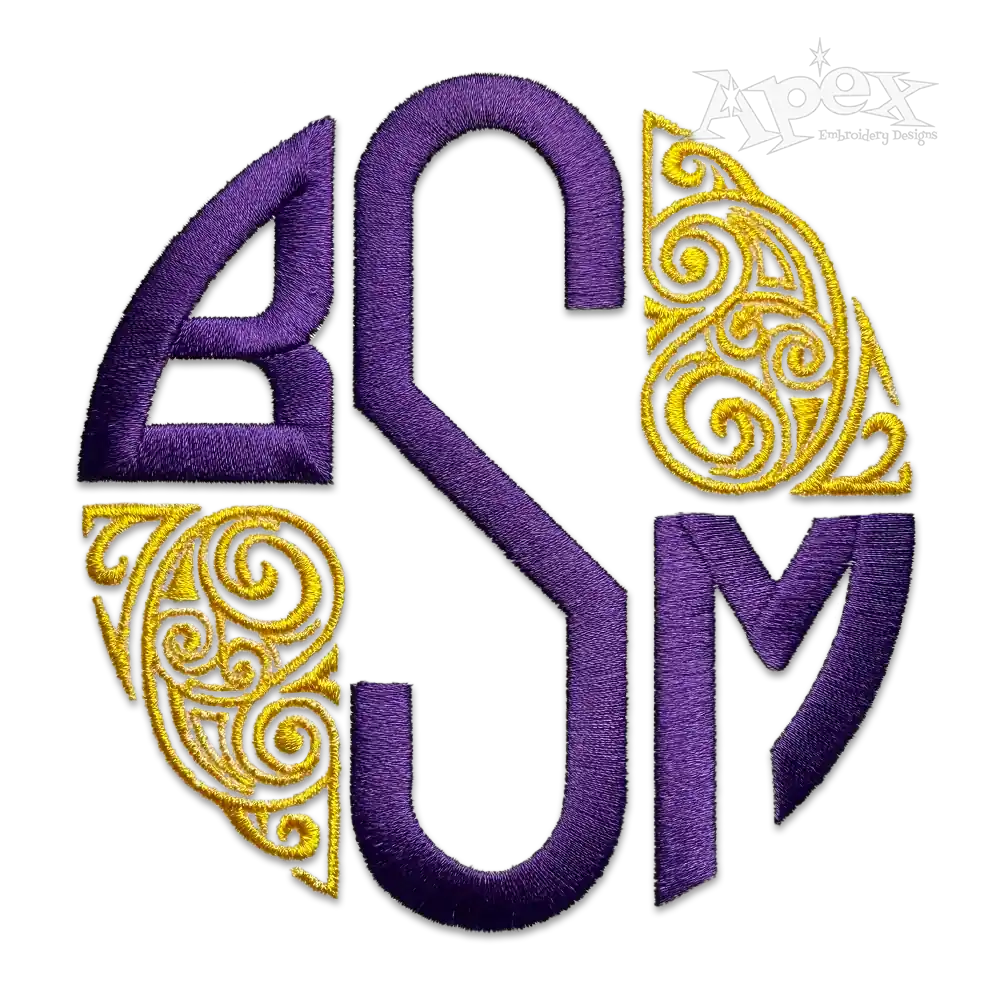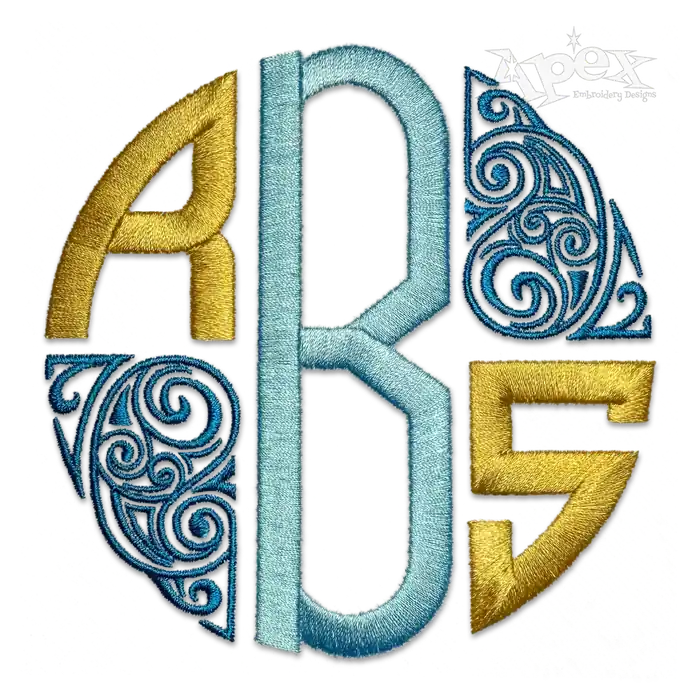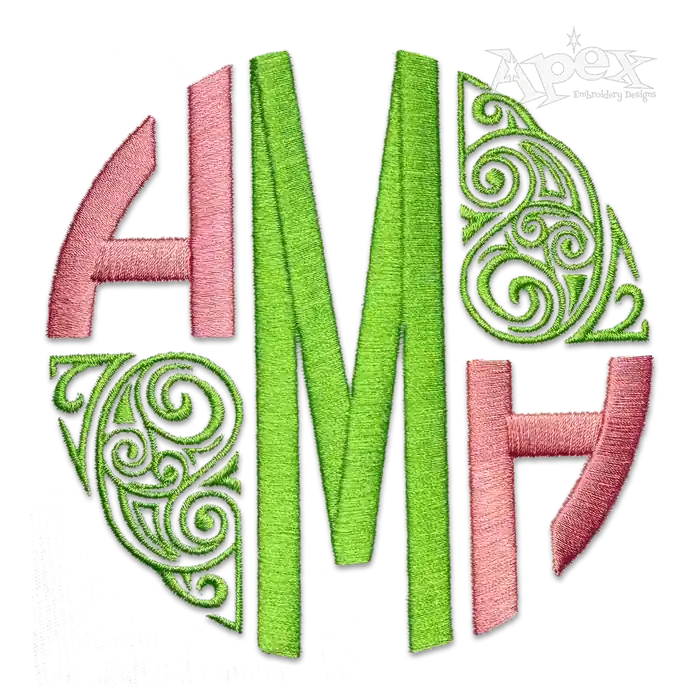
Round Monogram Accents Embroidery Font
There is an enduring, architectural grace in the classic circular monogram—a design tradition deeply rooted in the glamorous Art Deco era of the early twentieth century. When digitizing the Round Monogram Accents Embroidery Font, our studio focused on capturing that pristine geometric symmetry while honoring the sumptuous dimension that only masterfully planned embroidery can achieve. As the needle sculpts each smooth arc, the outer letters naturally cradle the dominant center initial, framed by tailored decorative accents that lock the trio into a unified, polished medallion. This font instantly elevates plain woven textiles into heirloom-worthy works of art, radiating refined bespoke luxury and vintage-inspired charm.
Digitized to maintain exquisite stitch integrity and flawless edge crispness, this three-letter filled deco collection is provided in two versatile, classic sizes:
Project Ideas for Round Monogram Accents Embroidery Font
Round Monogram Accents Embroidery Font Craft & Letterform Details
True round monograms demand rigorous digitizing precision. Unlike standard letterforms that sit on a horizontal baseline, each character in this collection was hand-sculpted along strict circular guide tracks. The central letter commands attention with authoritative vertical balance, while the left and right companion letters curve gently inward, maintaining harmonious negative space and consistent outer perimeters.
We paid meticulous attention to stitch direction and density transitions. The satin stitch columns flow fluidly around the curves, preventing overlapping thread bulk at the narrow taper points while preserving the rich, light-catching luster of the broader strokes. Beneath the smooth surface lies a calibrated foundation of structural underlay that anchors the fabric weave, ensuring the finished medallion remains perfectly round and puckering-free across a wide spectrum of fine wovens and textured fabrics.